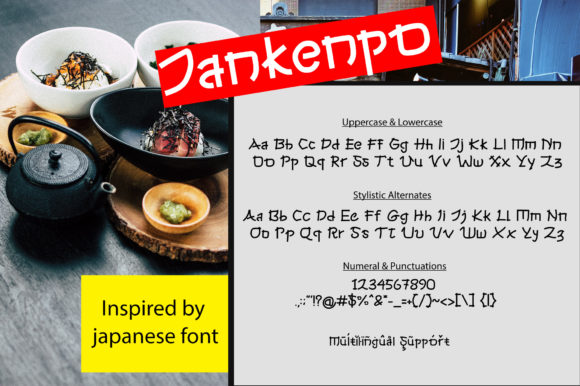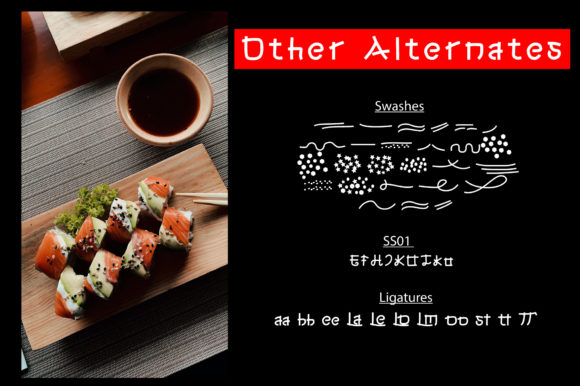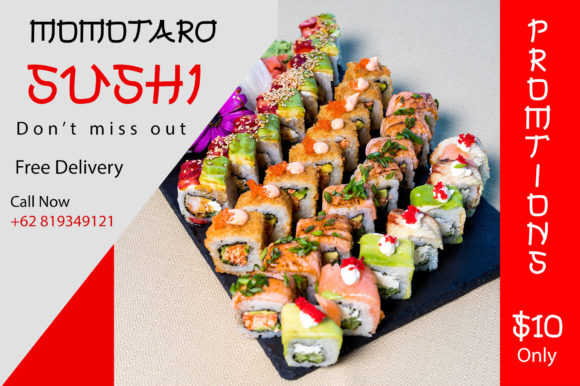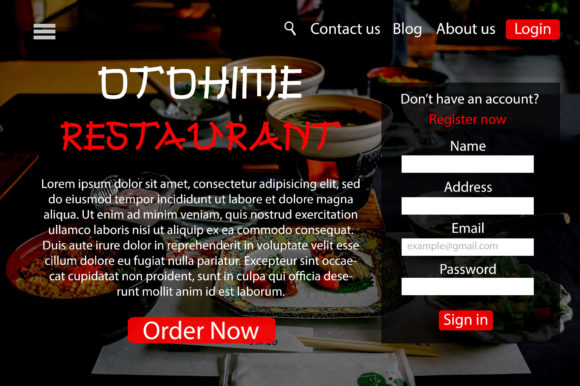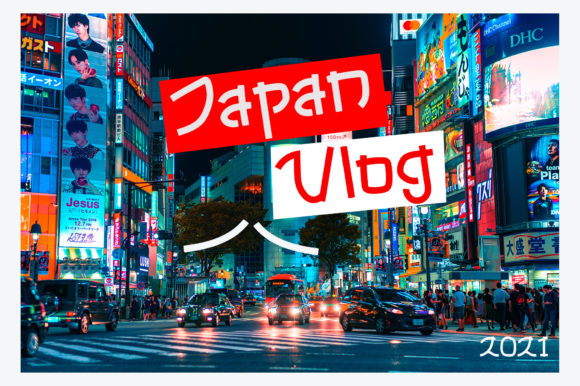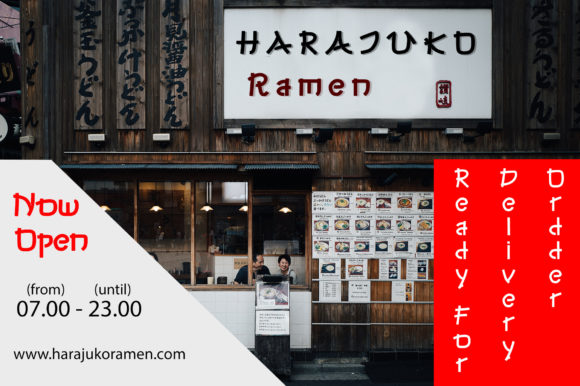
Introduction to Jankenpo Font
Jankenpo is an incredibly unique, Japanese inspired display font.
It will look stunning on any food menu, poster, flyer or print Use this font for your designs and explore its endless possibilities.
Key Features of Jankenpo Font